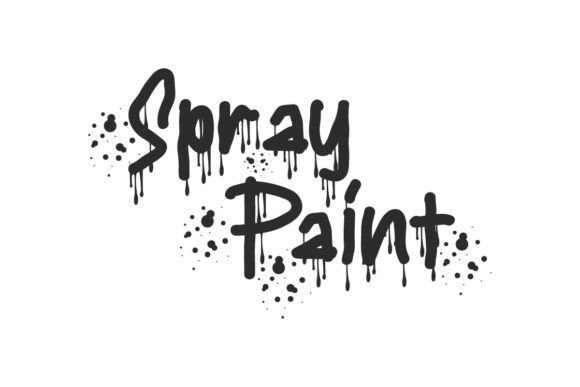
Introducing Spray Paint Font - the ultimate choice for your poster headings and design projects! Created by the talented team at NihStudio, this graffiti street display font brings the raw energy and visual appeal of dipping spray paint to your designs. Get ready to elevate your artwork and captivate your audience like never before!
Spray Paint Font is not your ordinary typeface. It embodies the rebellious spirit of street art, allowing you to unleash your creativity and make a bold statement. With its edgy and urban aesthetics, this font is perfect for those looking to add an extra touch of attitude to their designs.
Whether you're designing business cards, album covers, product packaging, posters, or even experimenting with screen printing, Spray Paint Font is the perfect tool to set your designs apart. Its unique style and distinctive strokes will instantly grab attention and leave a lasting impression on anyone who sees it.
Imagine the impact of your artwork when it's infused with the vibrant colors and dynamic textures of spray paint. Each character is meticulously crafted to emulate the authentic look of this urban art form. With Spray Paint Font, you can effortlessly bring the spirit of the streets to any project, creating a visual experience that is both captivating and mesmerizing.
But the versatility of Spray Paint Font doesn't end there. Its bold and eye-catching appearance also makes it an ideal choice for creating stunning wall art. Transform any blank canvas into a work of art that speaks volumes and sparks conversations. Let your imagination run wild as you explore the limitless possibilities this font offers.
With its keyword-rich design and captivating visuals, Spray Paint Font is a must-have for any designer or artist looking to make a statement. It's time to break free from the ordinary and embrace the extraordinary. Download Spray Paint Font today and let your creativity run wild!